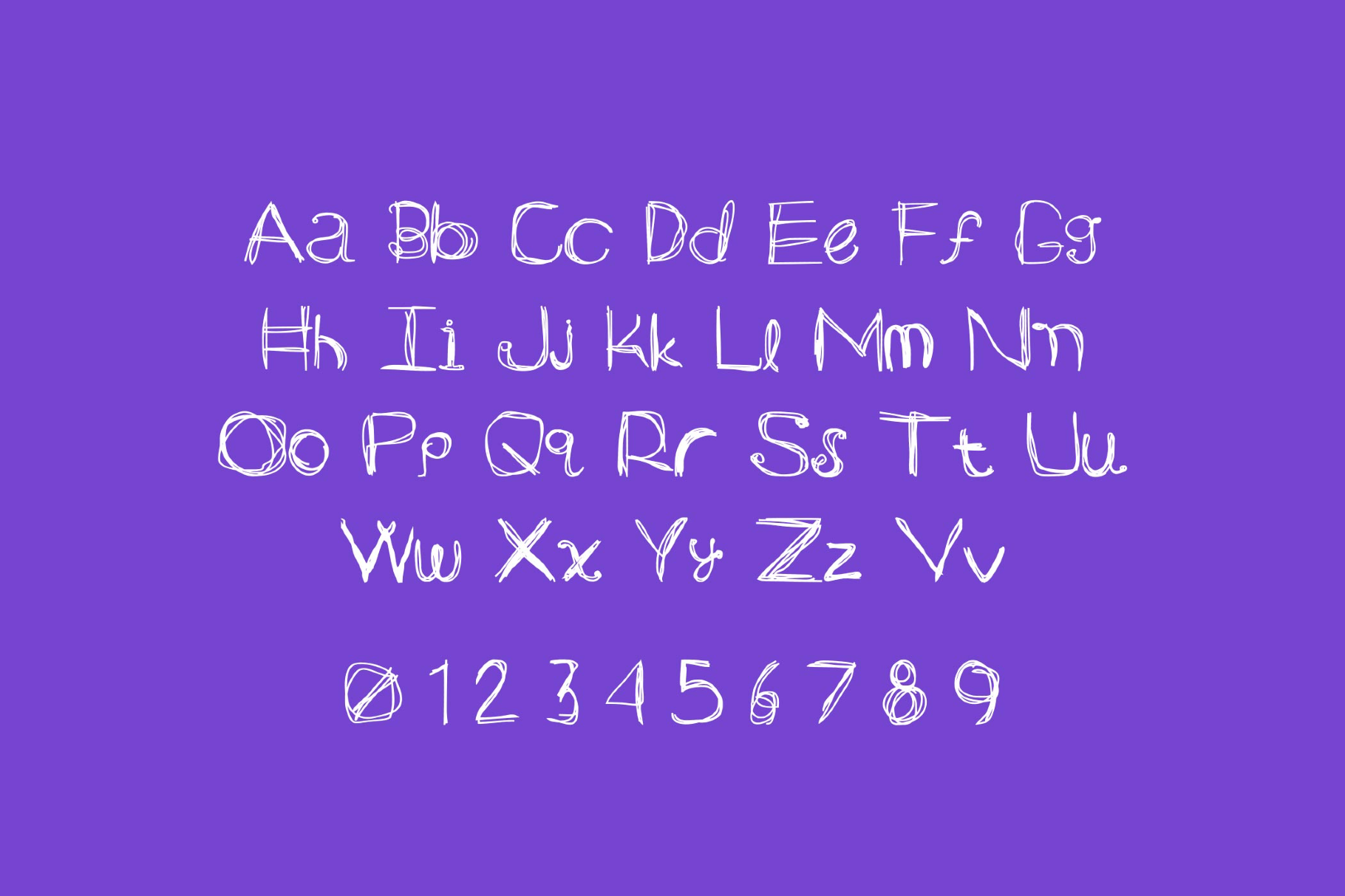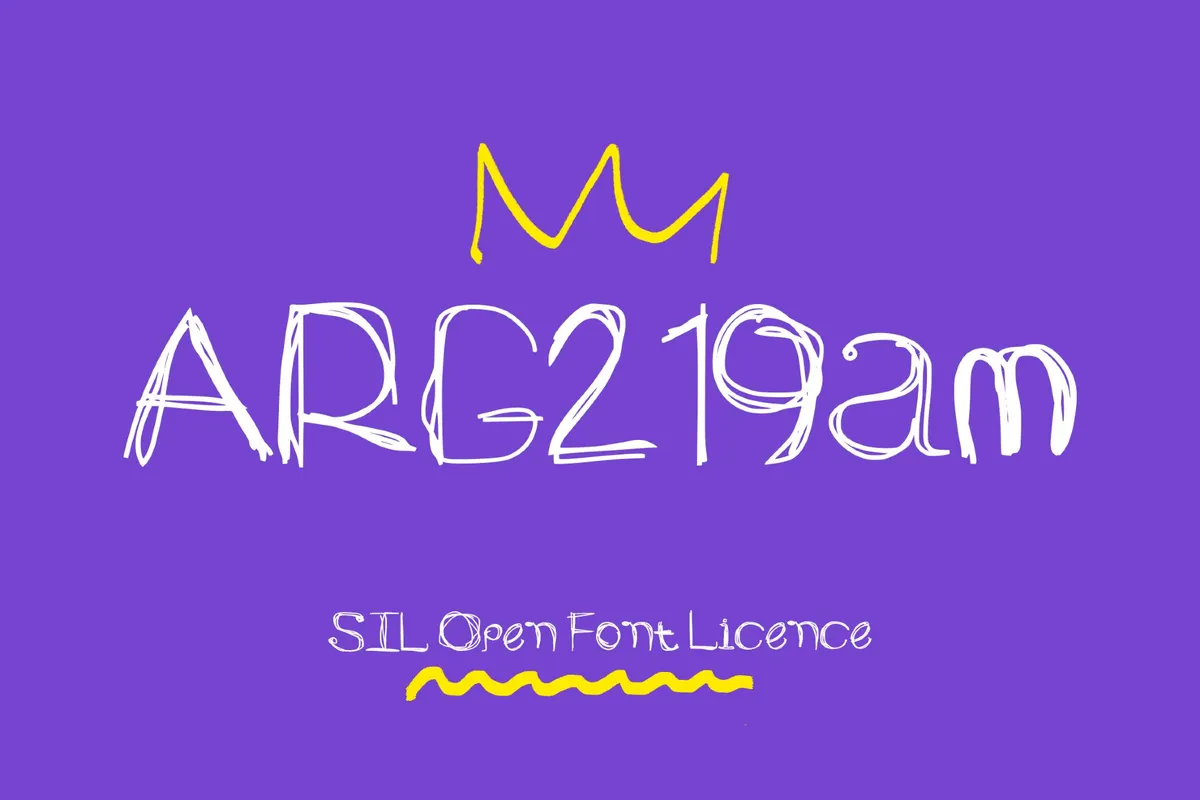
ARG219am Scribble Font
arg219am
ARG219am is a scribble poster sans with expressive, sloppily drawn strokes. Its playful voice fits children’s publishing, educational posters, school or daycare branding, toy and snack packaging, family-event flyers, book titles, and cheerful social media graphics.